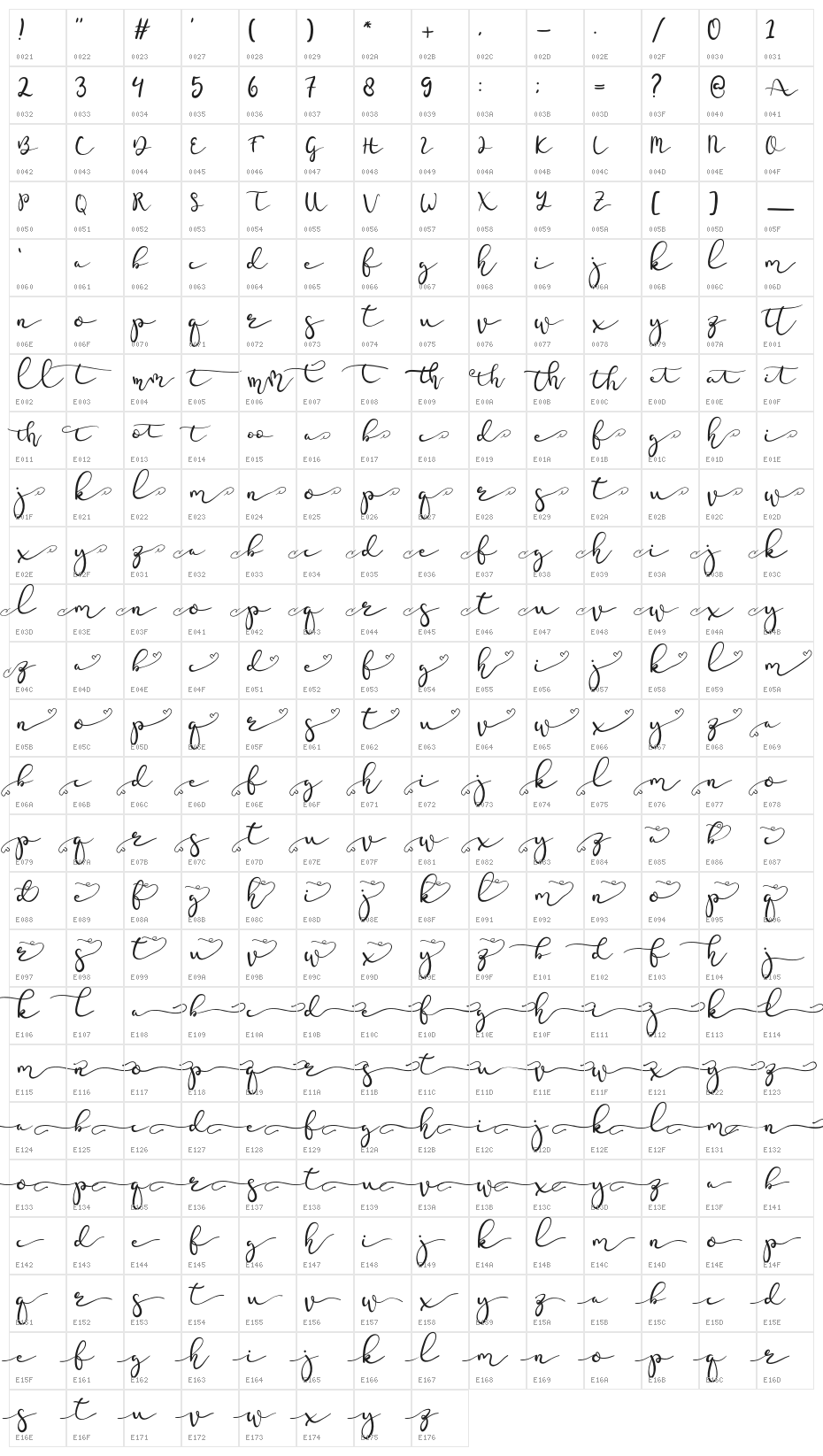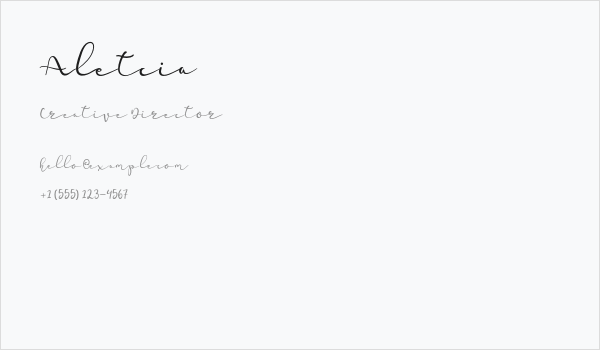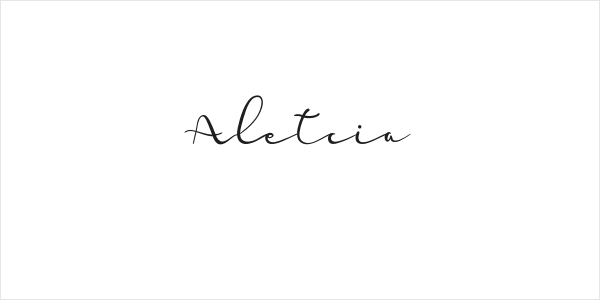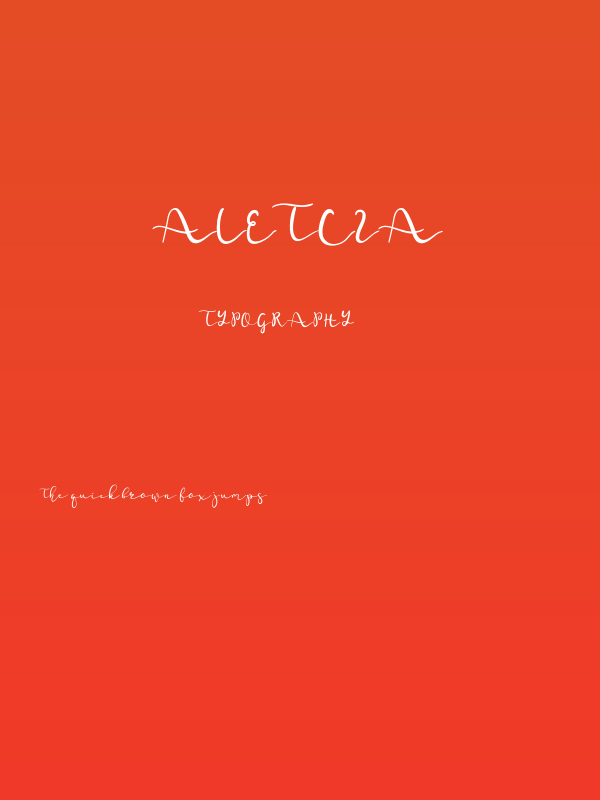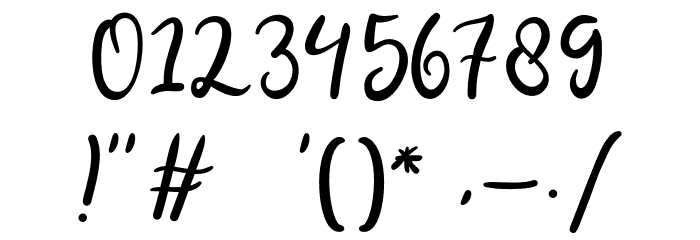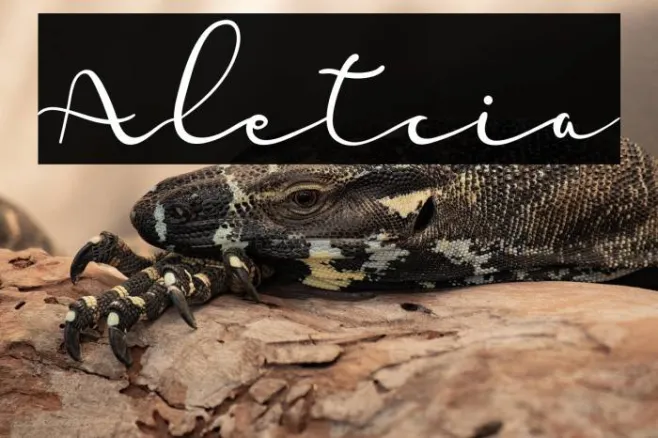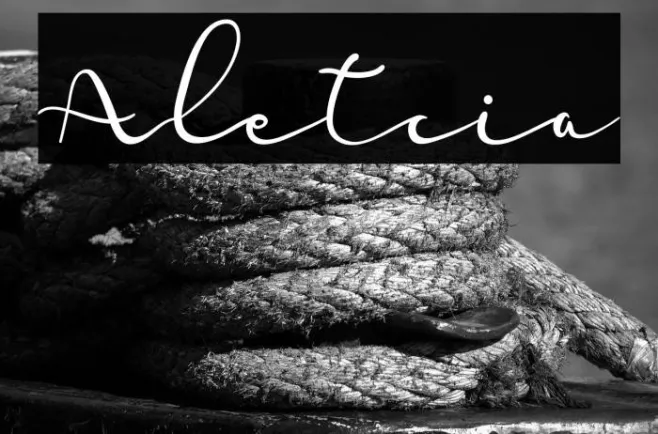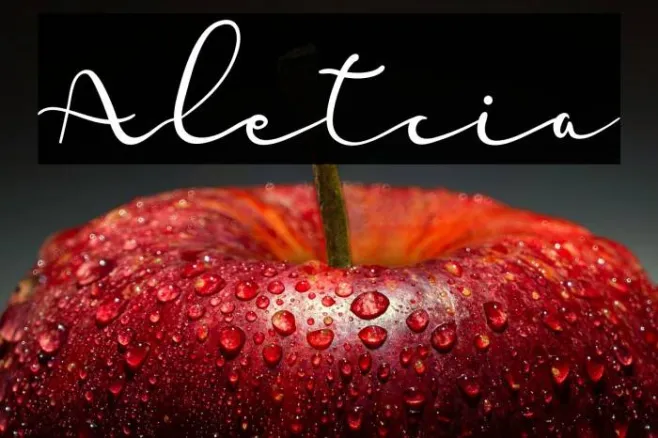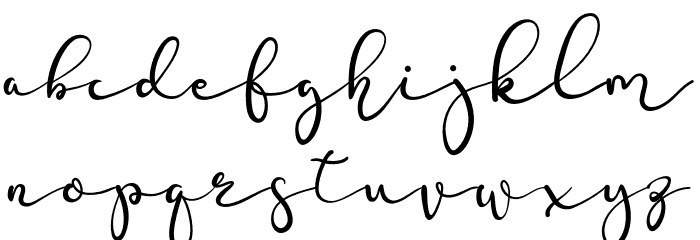
Aletcia Font
Aletcia Description
This font exudes a charming and elegant handwritten style, characterized by its fluid and graceful strokes. The uppercase letters are slightly larger and more pronounced, while the lowercase letters maintain a consistent flow, enhancing the script's natural and organic feel. The numbers are bold and clear, matching the overall aesthetic. Special characters are thoughtfully designed to complement the letters, adding versatility. The font's smooth curves and loops give it a sophisticated yet approachable appearance, making it suitable for a variety of creative projects.
| Use Case | Logos, Invitations, Personal stationery |
| Proposed Projects | Ideal for wedding invitations, greeting cards, branding, and personal stationery. |